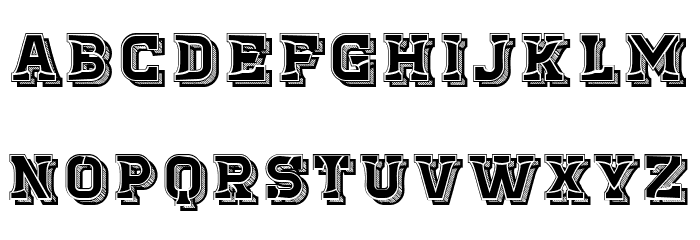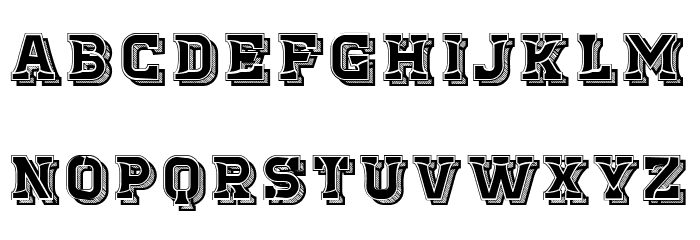
Viscosus Filled Regular Font
This font features a bold, decorative style with a strong presence. Each character is filled with intricate detailing, giving it a three-dimensional appearance. The letters are outlined with a thick border, enhancing their visibility and impact. The design is reminiscent of vintage signage, with a modern twist that makes it suitable for contemporary projects. The overall look is both playful and assertive, making it ideal for eye-catching designs. The font maintains consistent proportions across all characters, ensuring readability while still offering a unique aesthetic.
A bold, decorative font with intricate detailing and a vintage-modern style.
- Font: Viscosus Filled Regular
- Proposed Projects: Ideal for posters, branding, headlines, and any project requiring a strong visual impact.
- Overall Style: Vintage, Modern